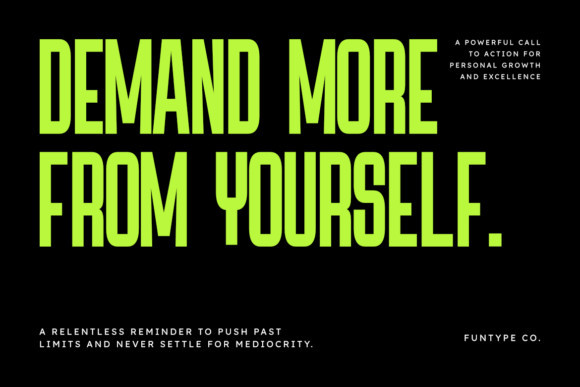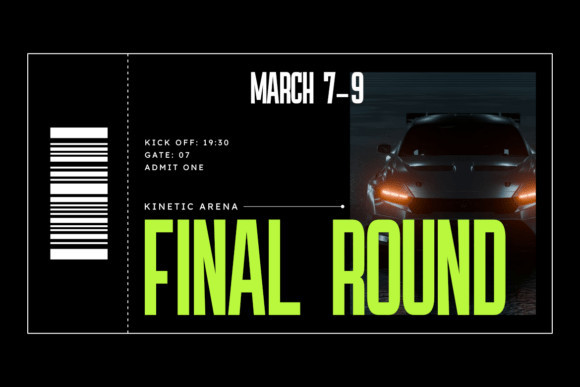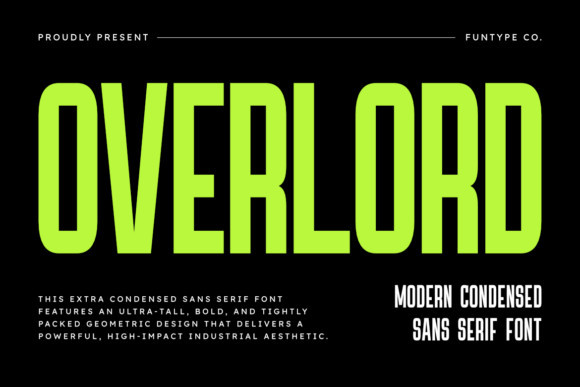
Overlord Font
Overlord Font is an commanding extra condensed sans serif font designed for high-impact visual communication. Featuring an ultra-tall structure and a bold, geometric design, this typeface delivers a powerful industrial aesthetic that demands attention. Its tightly packed letterforms are perfect for creators who need to make a statement in limited spaces without sacrificing strength.
As an All Caps display font, Overlord is optimized for massive headlines, bold branding, and modern editorial designs. With integrated Multilingual Support, it serves as a versatile powerhouse for global projects, from aggressive sports graphics to cutting-edge tech identities.